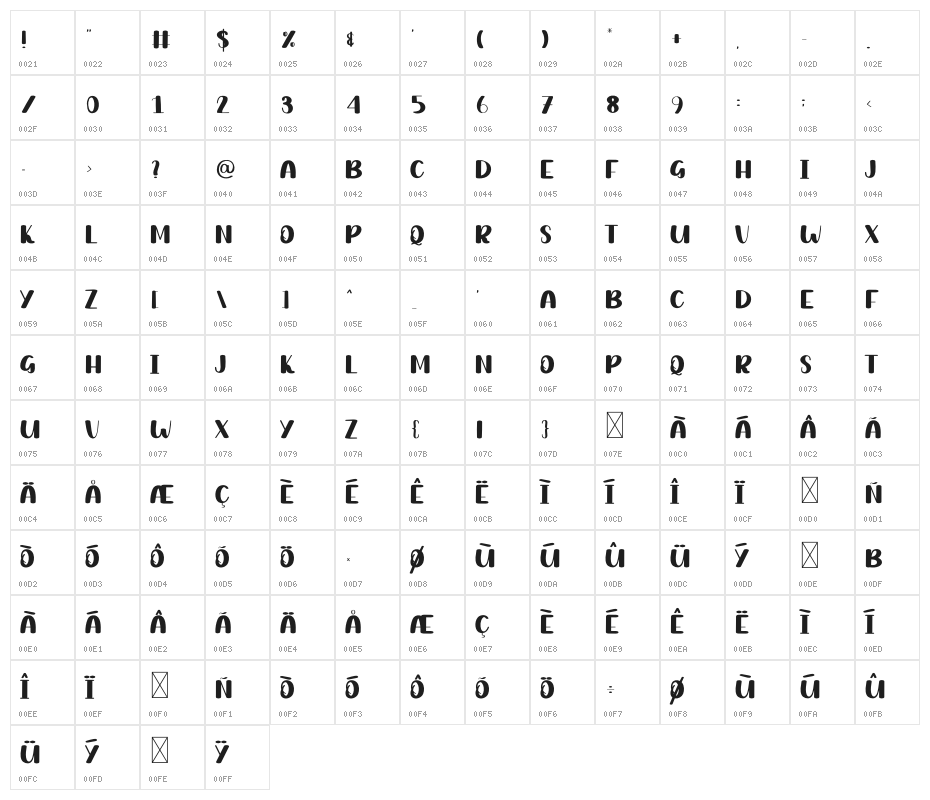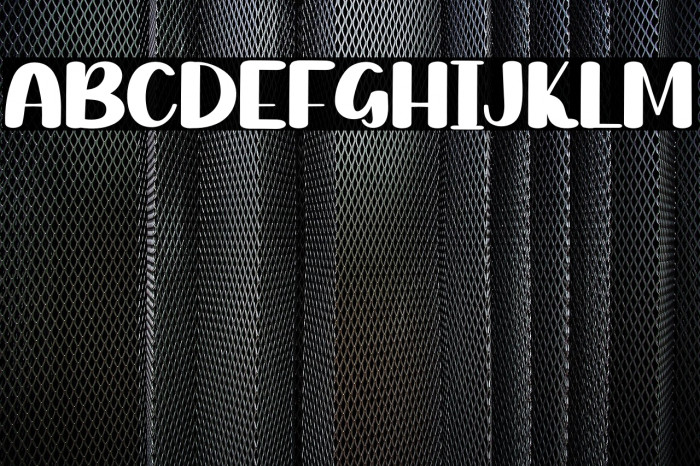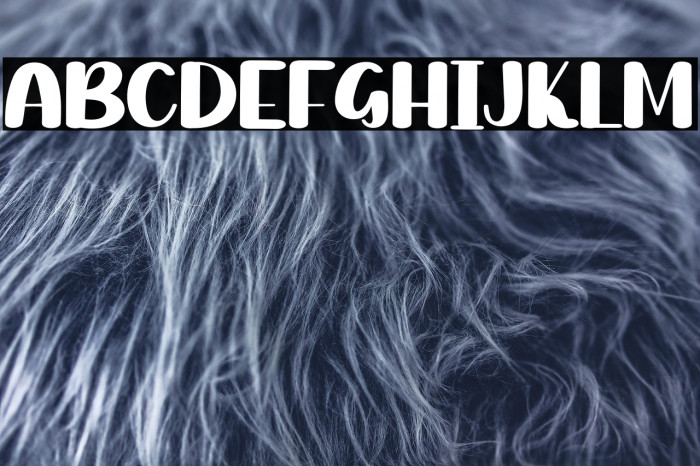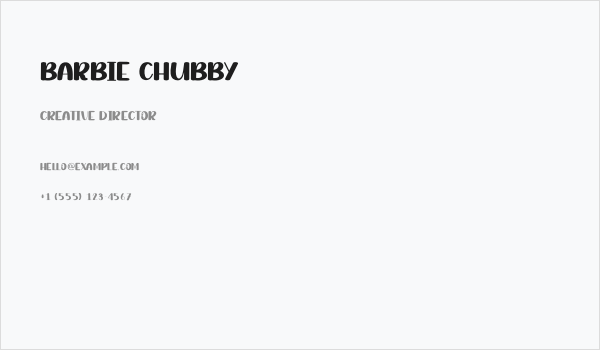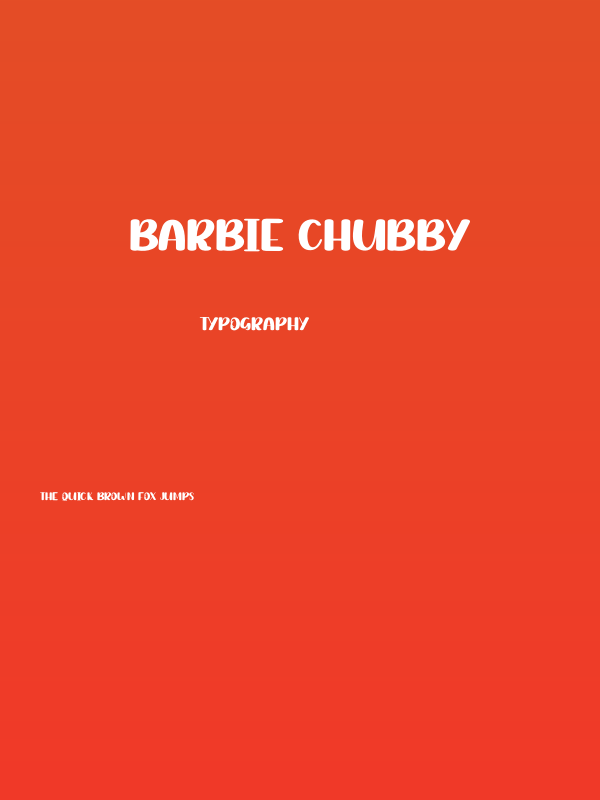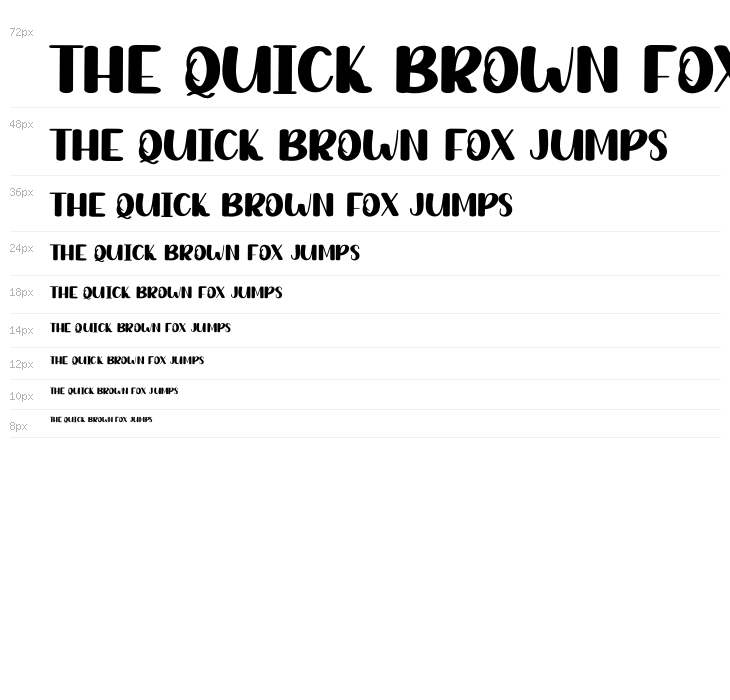
Barbie Chubby Font
Barbie Chubby Description
This font features a playful and bold design with rounded edges and a whimsical flair. The characters are thick and substantial, giving a sense of fun and creativity. The uppercase and lowercase letters maintain a consistent style, with some characters featuring unique curves and loops that add to the font's charm. The numbers and special characters are equally bold, ensuring readability and consistency across all elements. This font is ideal for projects that require a touch of personality and vibrancy.
| Proposed Projects | Perfect for children's books, playful branding, party invitations, and creative posters. |